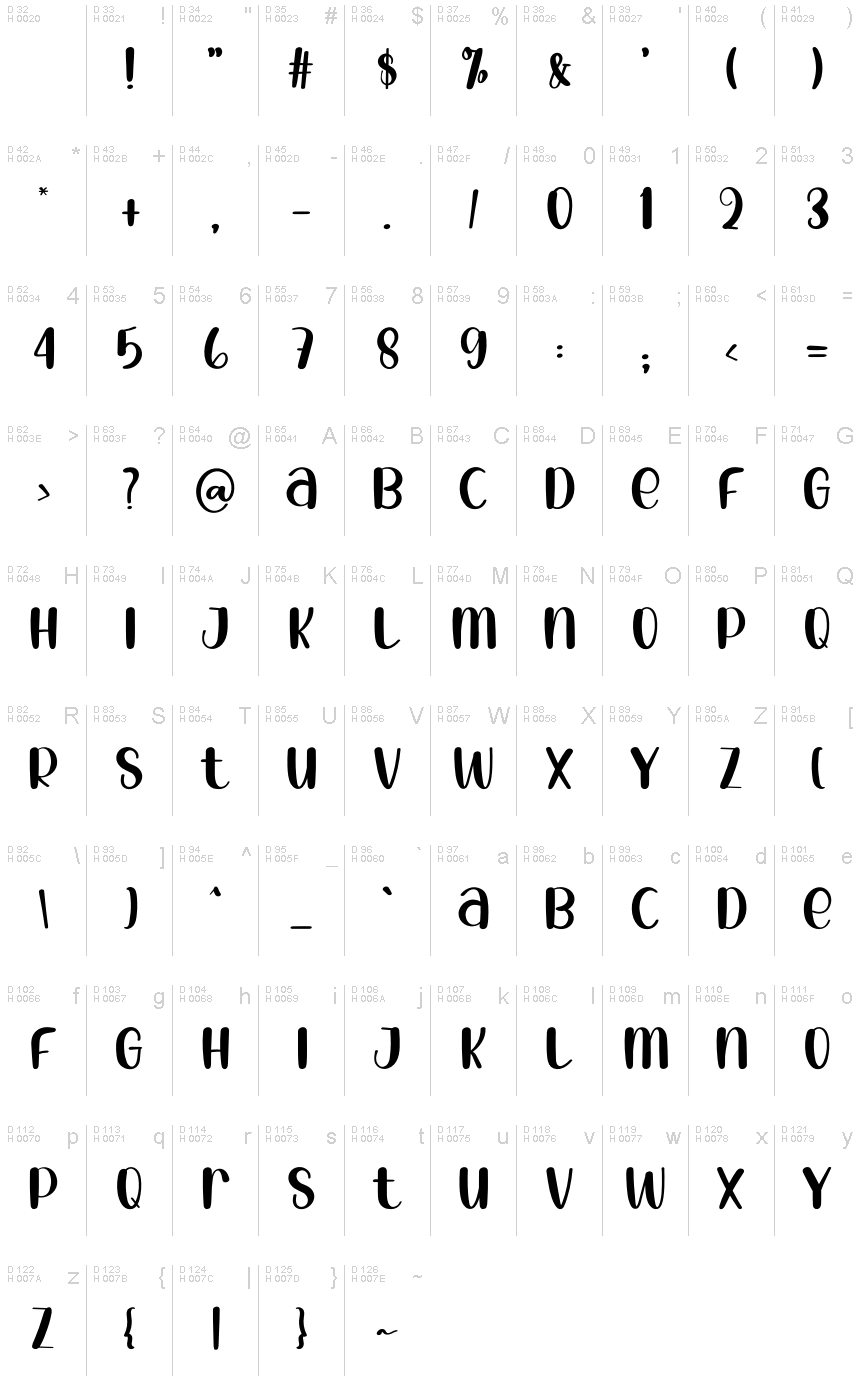
Schools
Schools, crafted by PiPi Creative, is a captivating display font that exudes playful charm with its bold, cartoonish style. Each letter is imbued with a sense of fun and whimsy, making it perfect for projects that aim to capture youthful exuberance and creativity. The thick strokes add a robust presence, ensuring text stands out vividly.
Ideal for children's books, educational materials, or playful branding initiatives, Schools offers an engaging visual appeal. Its bold weight delivers clarity and impact while maintaining an approachable and friendly vibe. Whether used in headlines or creative displays, this font brings a unique character to any design project.